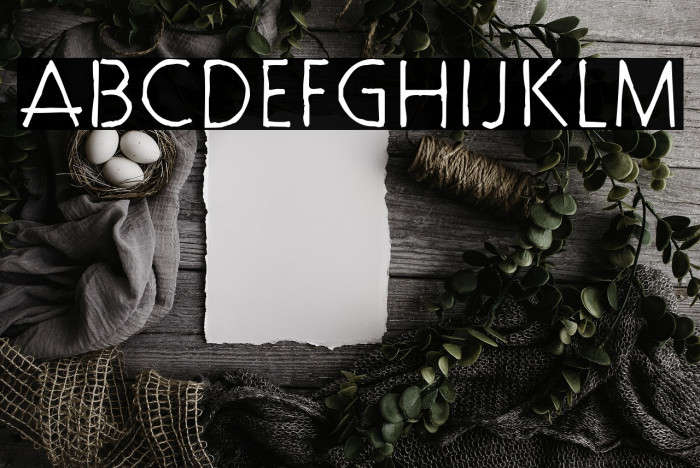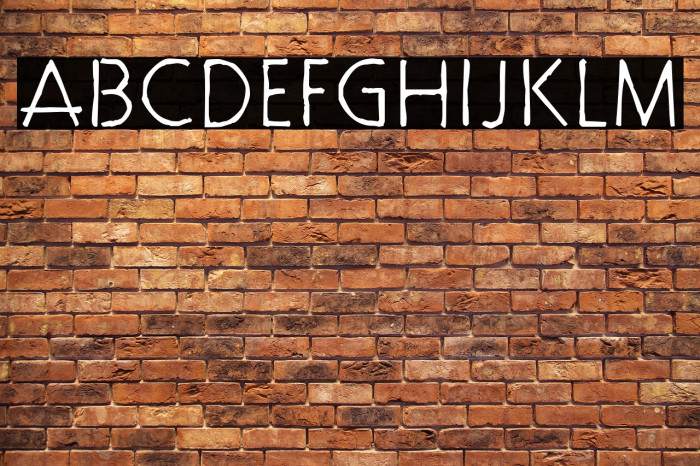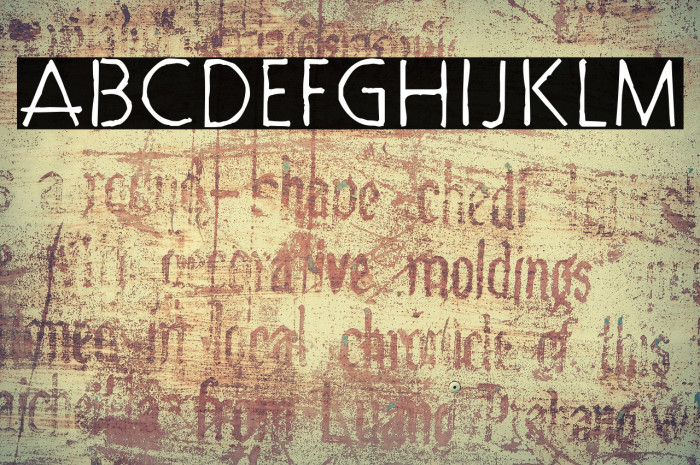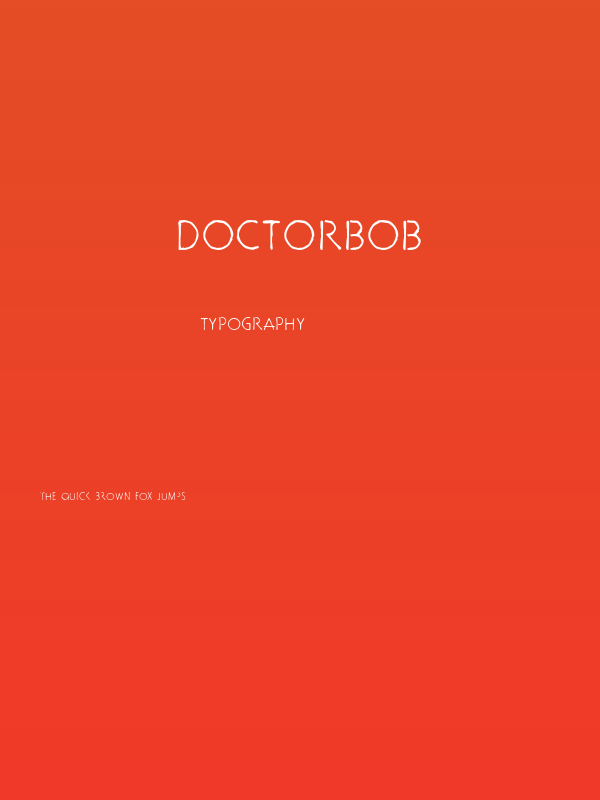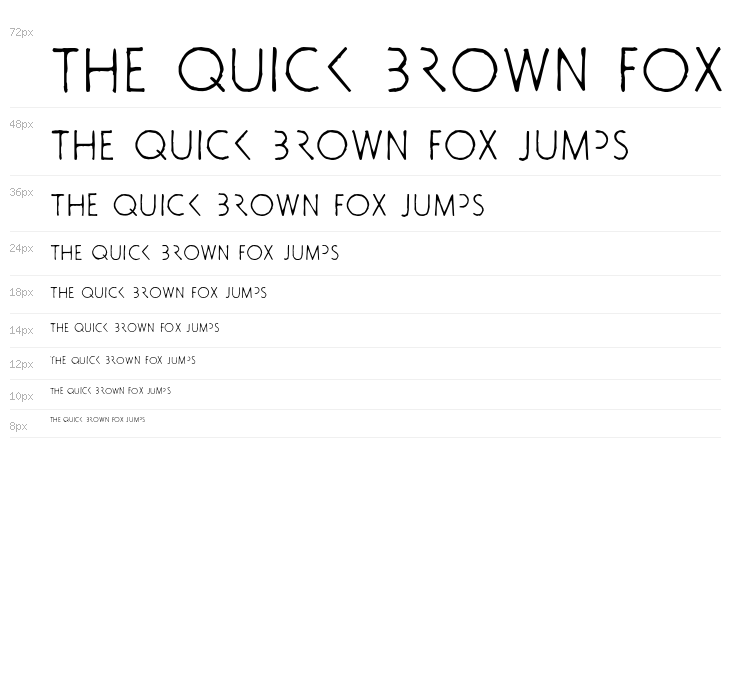
DoctorBob Font
DoctorBob Description
This font features a unique and artistic style with a hand-drawn appearance. The characters are slightly irregular, giving it a whimsical and informal feel. The uppercase letters have a consistent height, while the lowercase letters maintain a similar style with a playful twist. The numbers are distinct and easily readable, matching the overall aesthetic. The special characters blend seamlessly with the rest of the set, maintaining the font's quirky and creative vibe. This font is perfect for projects that require a touch of individuality and creativity.
| Use Case | Headlines, Logos, Artistic projects |
| Proposed Projects | Ideal for creative projects such as children's books, greeting cards, artistic posters, and branding for quirky or artisanal products. |